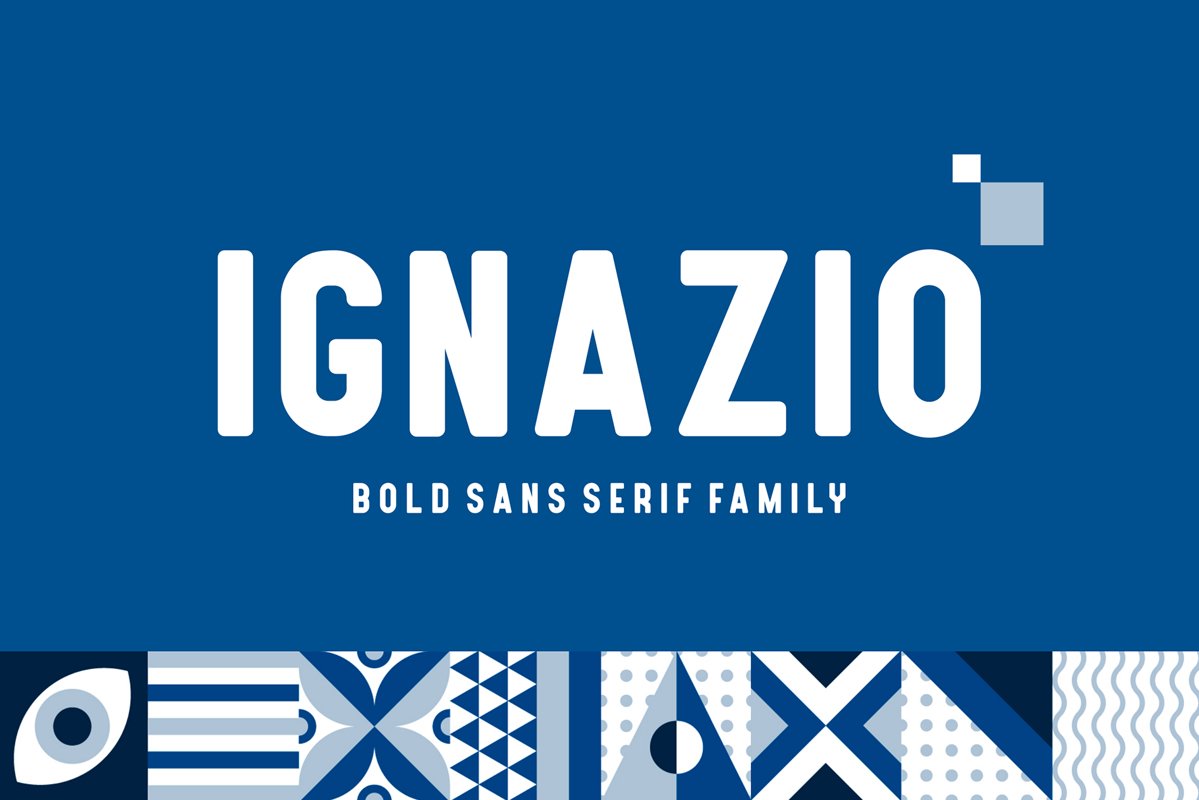
Ignazio is a powerfull sans serif font family with modern touches. A balance of hard lines and smooth curve makes them able to stand on their own dynamically
Ignazio includes four all-caps fonts
- Ignazio Regular
- Ignazio Italic
- Ignazio Outline
- Ignazio Outline Italic
Ignazio works great in any branding, logos, magazines, films. The different styles give you a full range to explore a whole host of applications.